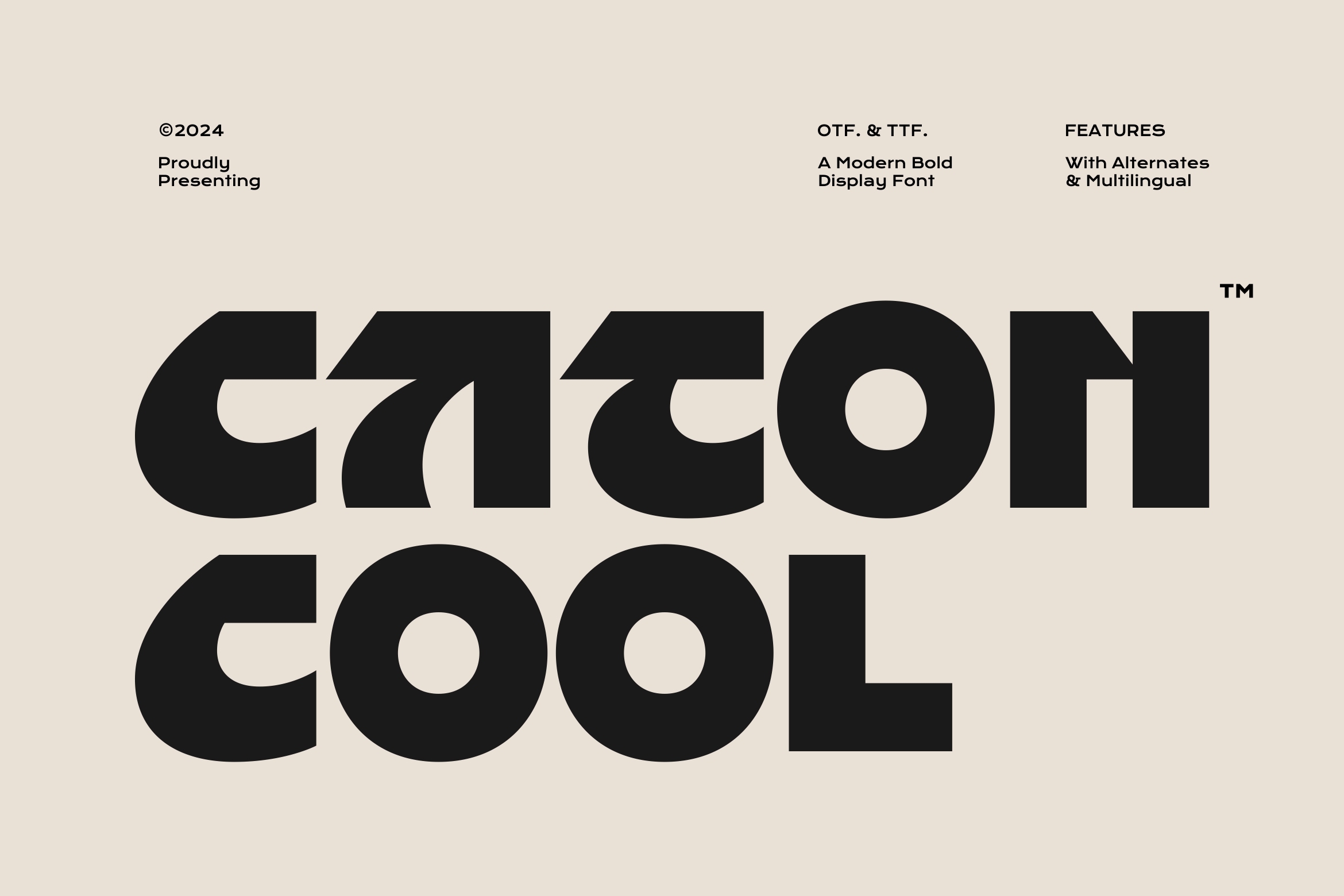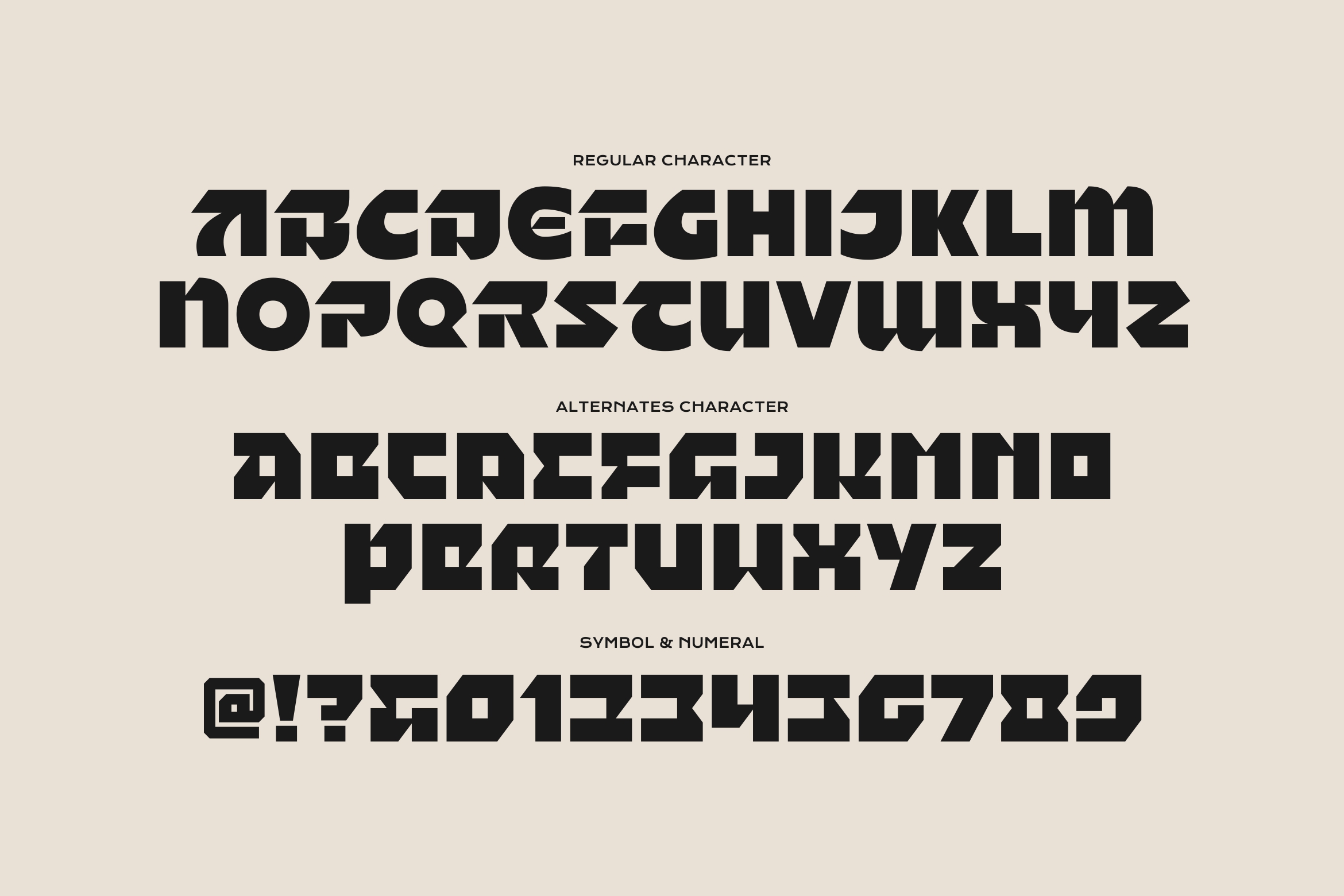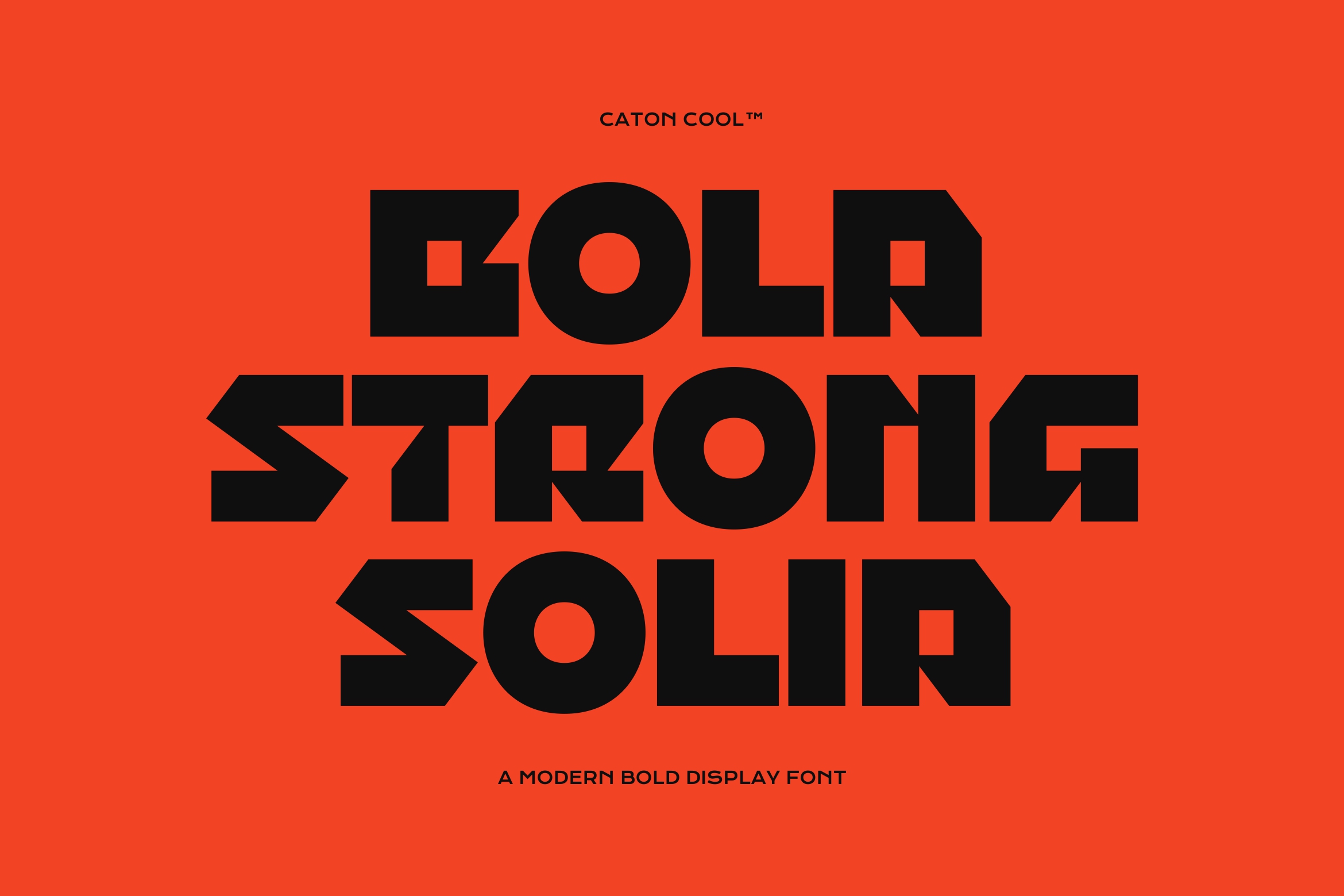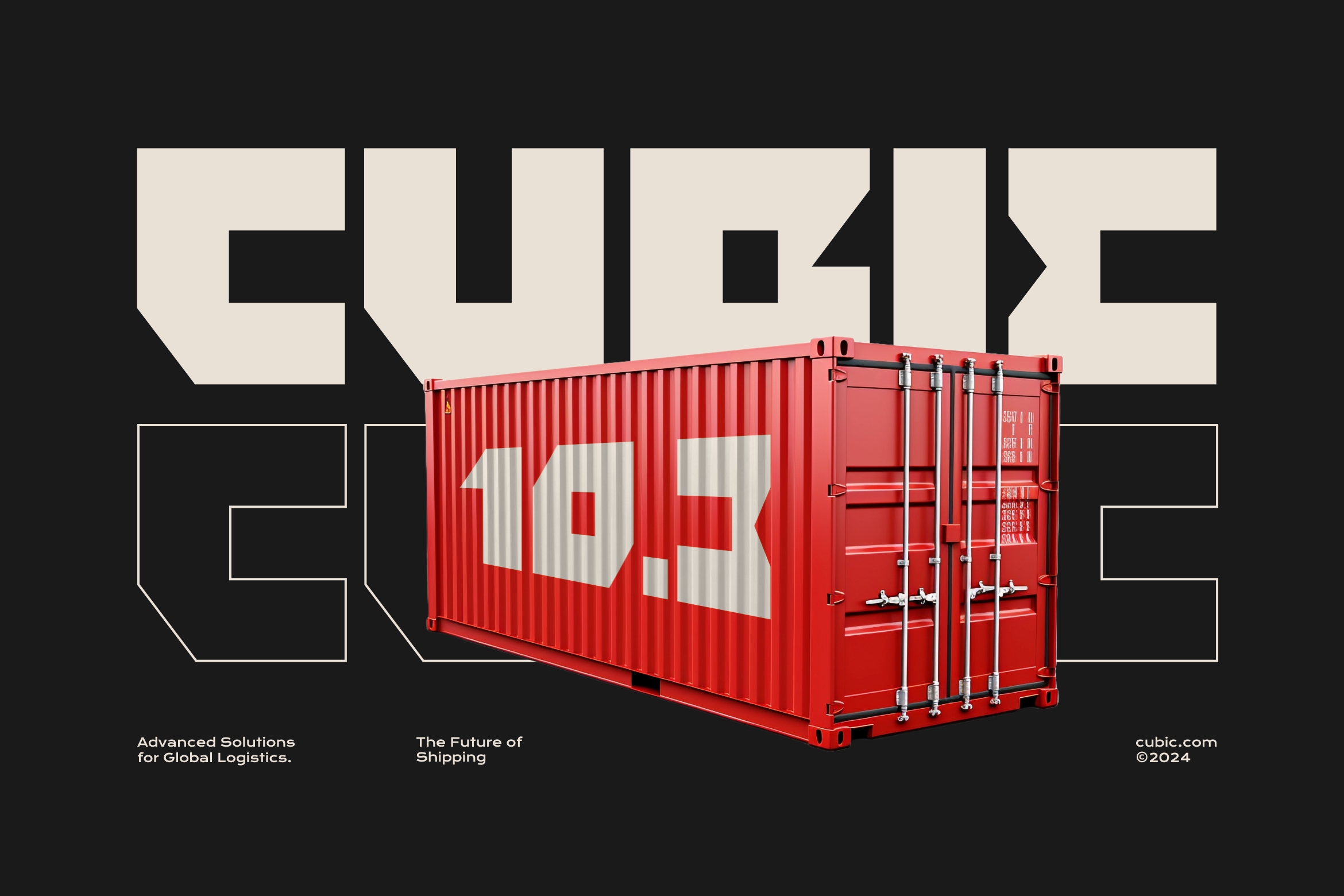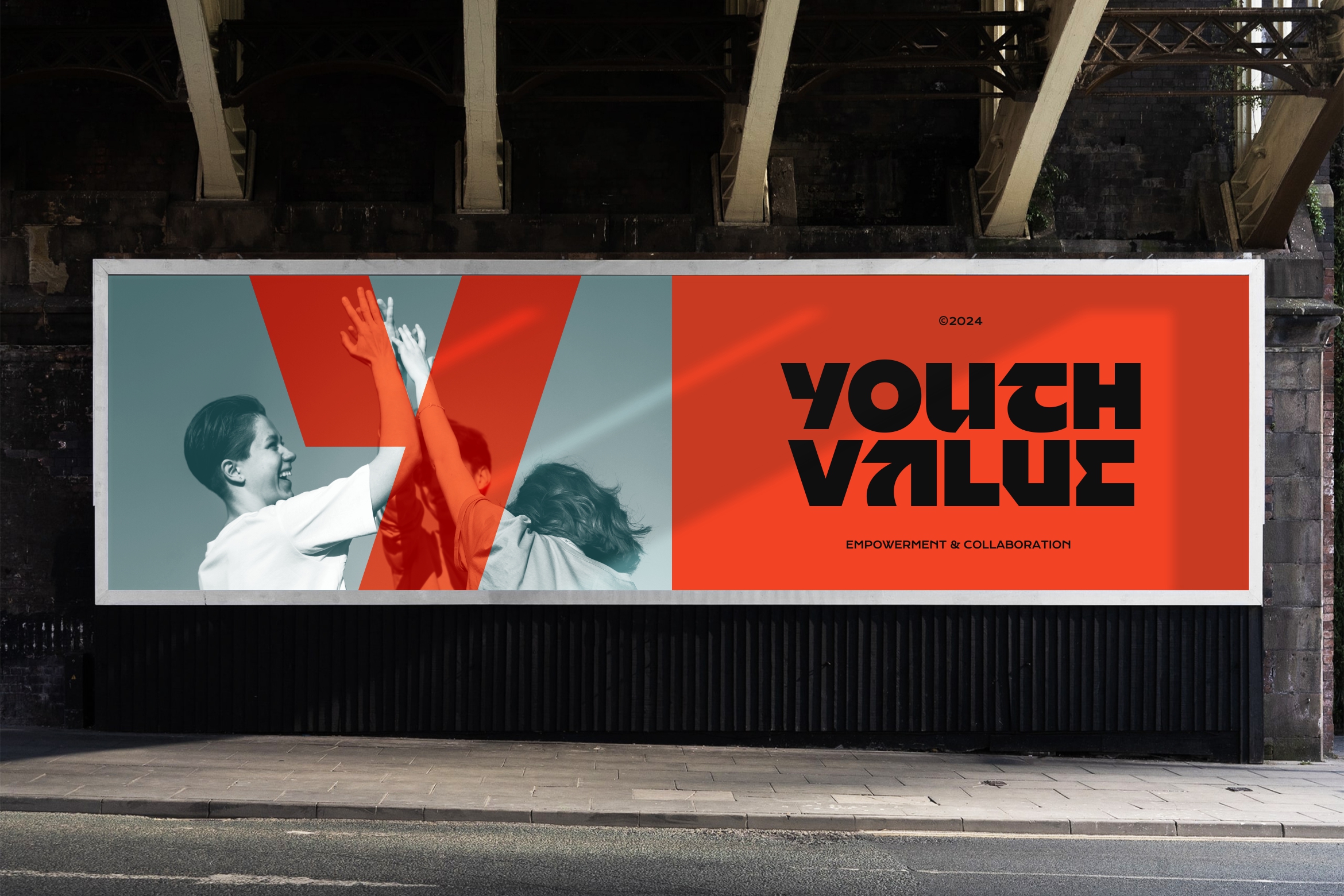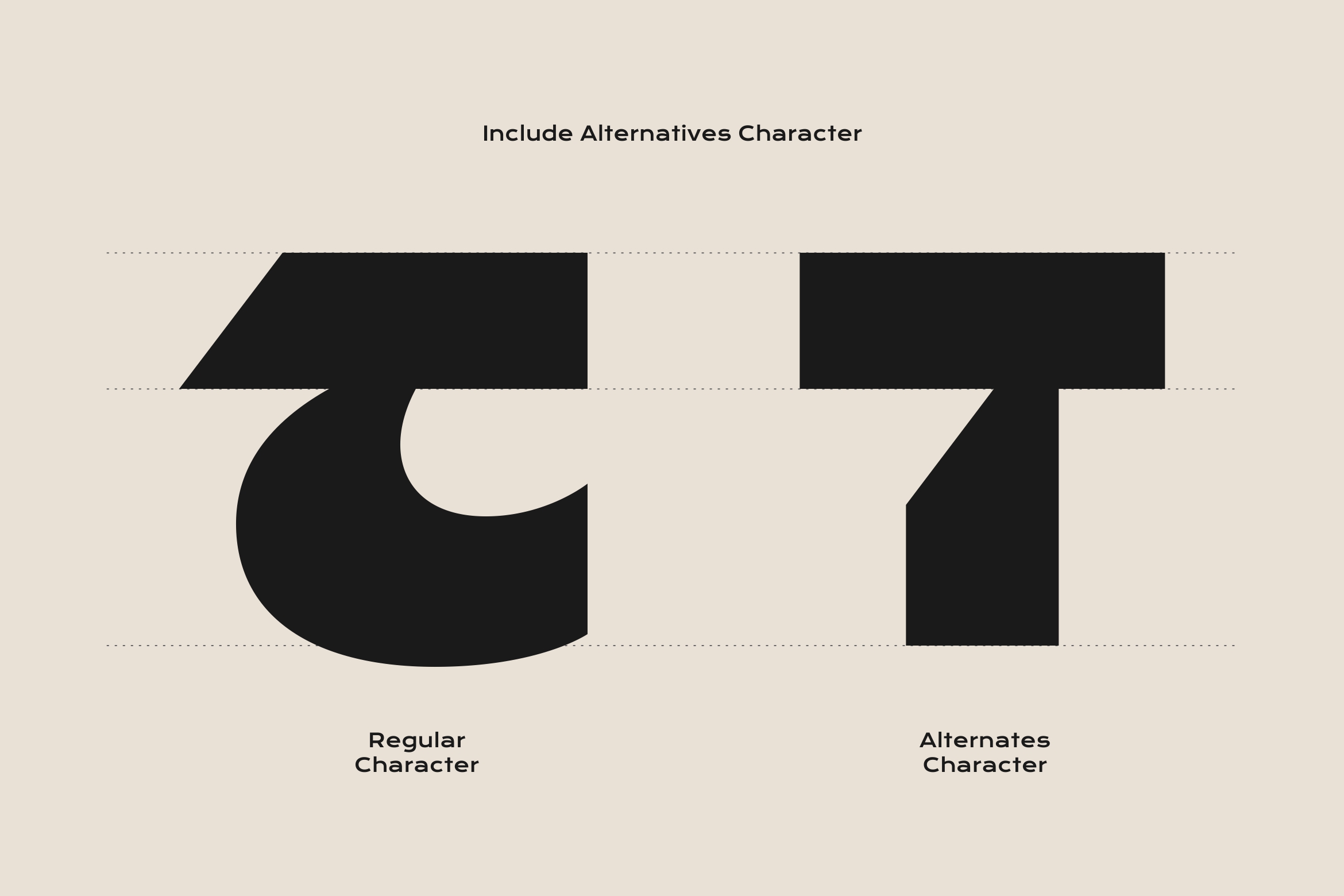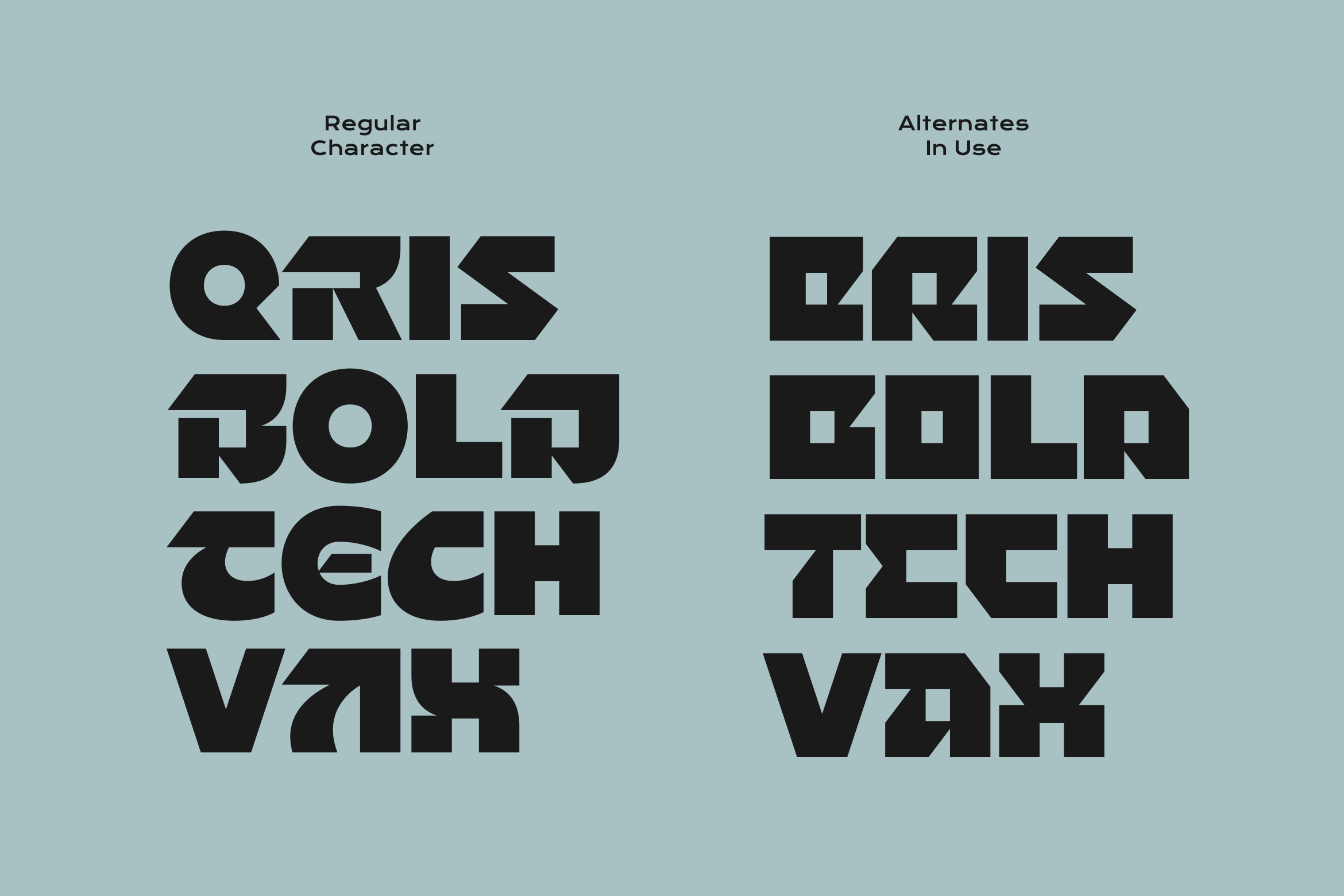
Caton Cool
Caton Cool is a modern bold display font with a striking geometric construction and a powerful visual impact. Its wide proportions, dramatic curves, and unique angled cuts give it a distinctive futuristic personality that grabs attention immediately. With both standard and alternate character sets, Caton Cool is ideal for tech branding, poster headlines, merchandise, and logos that demand a bold identity.